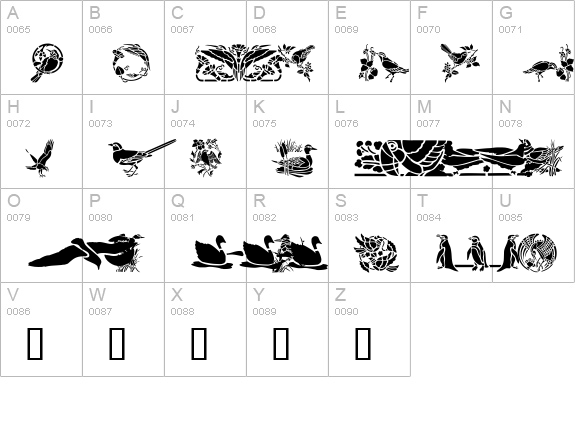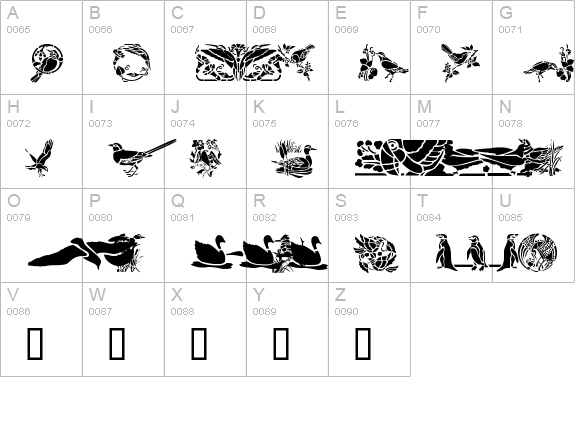
Birds Two Font Details
Introducing Birds Two font, a charming and whimsical typeface that will bring a touch of playfulness to your designs. This delightful font features elegant, flowing lines and unique bird-inspired elements that will make your text stand out. Birds Two font is perfect for a variety of projects, from invitations to branding to social media graphics. What's even more exciting is that Birds Two font is available for free download at FontsMarket.com. Yes, you heard that right - this fantastic font can be yours at no cost at all! So don't miss out on the opportunity to add a touch of creativity and fun to your designs with Birds Two font. Download it today and let your creativity take flight!